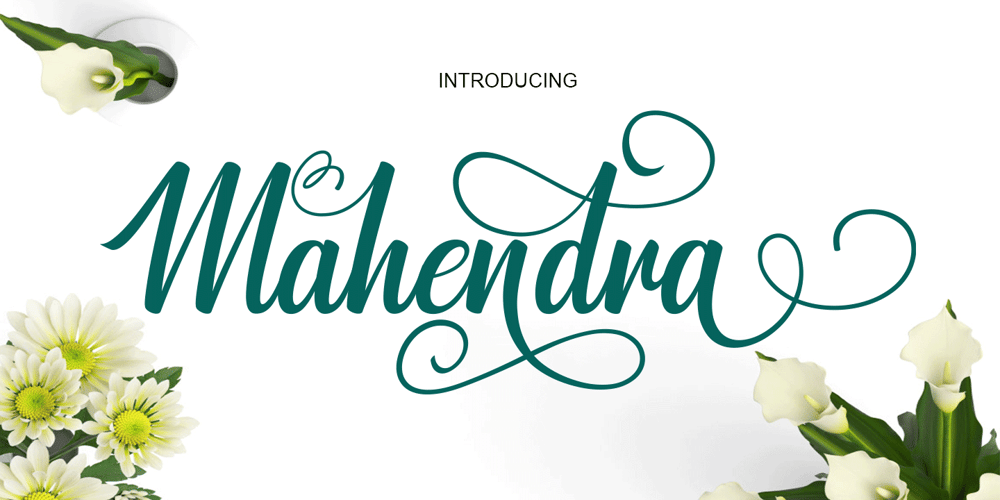
Mahendra
Mahendra font
Mahendra Font Family was designed by Marwah and published by BBA Key. Mahendra contains 1 styles and family package options. Mahendra Script is a new fresh and modern font in handmade calligraphy, with decorative characters and dancing lineage! So wonderful on invitations, greeting cards, branding material, business cards, quotes, posters, and more.If you do not have programs that support OpenType features like Adobe Illustrator and CorelDraw X Versions, you can access all alternates using Font Book (Mac) or Character Map (Windows).If you have any questions, please feel free to contact me via email.